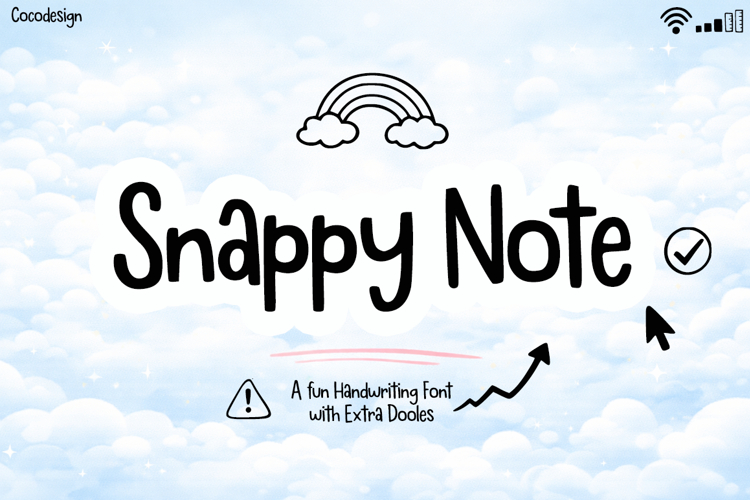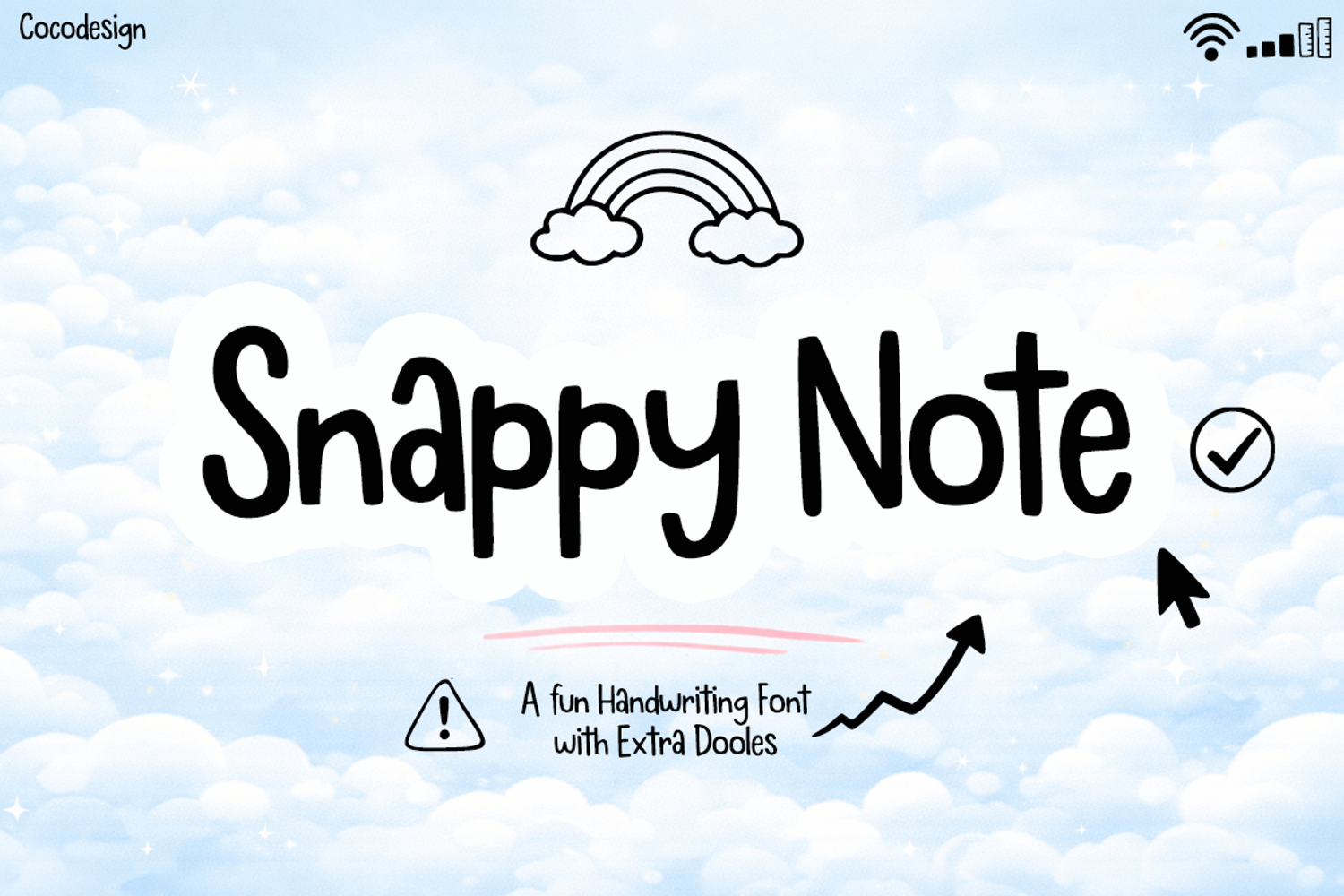
Snappy Note Playful Handwriting Font with Doodles
Snappy Note is a playful handwriting font with a friendly, casual, and expressive style. Designed to bring a fun and cheerful feel, this font works perfectly for creative projects that need a light, approachable, and handwritten touch.
Each character is crafted with smooth, rounded strokes and consistent line weight, creating a natural handwritten look that remains clear and readable. The font also includes extra doodles and decorative symbols, adding more flexibility and personality to your designs.
Snappy Note is ideal for digital notes, planners, worksheets, children’s content, social media posts, casual posters, stickers, cute packaging, greeting cards, and educational projects.
- Extra doodle elements
- Fun, casual handwriting style
- Easy to read and versatile
Snappy Note is a great choice for designers looking for a cheerful, friendly, and character-filled handwriting font.